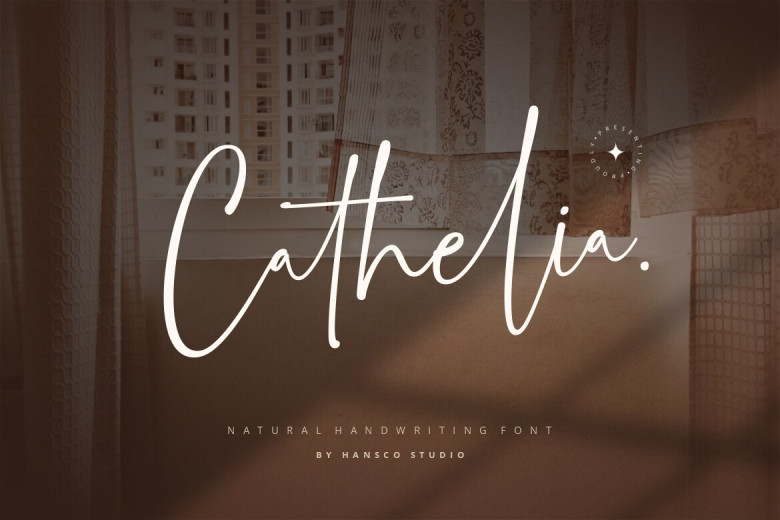
Cathelia Font
Cathelia Font is a modern, casual and feminine handwritten font. Chep File font has many suitable projects such as quotes, menus, taglines, flyers, posters invitations greeting cards unique presentations letter header and whatever comes in your mind too!
Complete with full uppercase and lowercase characters, numbers and punctuation as well as ligature characters along with extensive language support this one is sure to be a wonderful addition in your upcoming project!
Cathelia Handwritten Font